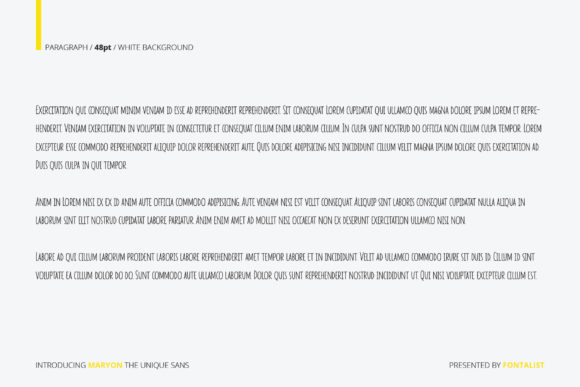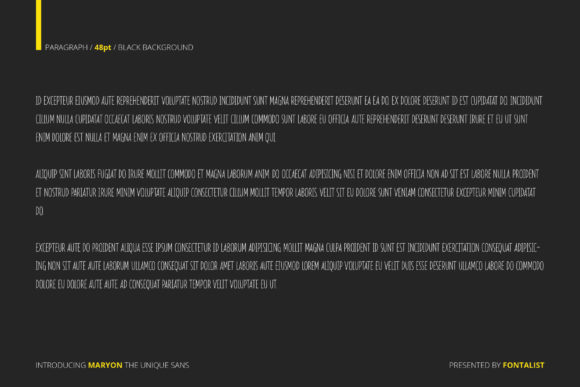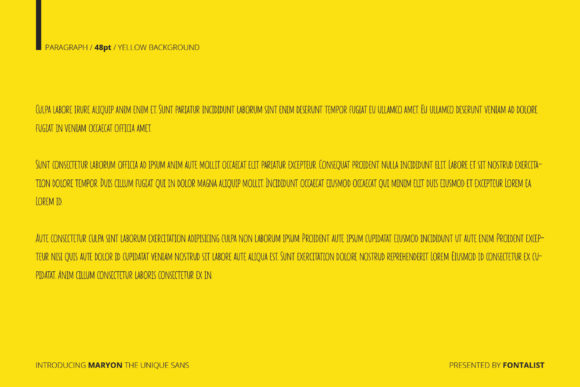
Introduction to Maryon Font
Have you ever been working on a creative project, pouring your heart and soul into it, only to realize that the right font can make all the difference? For me, that moment came when I was designing a logo for a friend’s new business. I had the perfect concept, but the font just didn’t seem to match. That’s when I stumbled upon the Maryon Font, and everything fell into place.
As a valuable design resource, the Maryon Font has become a staple in my creative toolkit. Its simple and neat lettering makes it an incredibly versatile font that can be easily paired with a wide range of projects. Whether you’re working on a branding project, creating a brochure, or designing a website, the Maryon Font is sure to make your work stand out.
Key Features of Maryon Font
- Includes a large character set with over 200 glyphs and symbols
- Designed with a modern aesthetic and clean lines
- Supports a range of languages, including Latin, Cyrillic, and Greek
Honest Review: Maryon Font
As a designer, I’m always on the lookout for high-quality design resources to elevate my creative projects. Recently, I had the opportunity to work with Maryon Font, and I must say, it’s been a game-changer. ✨
The Maryon Font family offers a wide range of styles and weights, making it perfect for any design project. From elegant headings to clean body text, this font is versatile and easy to use. I particularly appreciate the transparent background option, which allows for seamless integration into any design. ✨
Here are some of the features that I love about Maryon Font:
- High-quality design that’s perfect for professional projects
- Wide range of styles and weights to suit any design need
Overall, I’m thoroughly impressed with Maryon Font. Its high-quality design, versatility, and ease of use make it an excellent addition to any designer’s toolkit. If you’re looking for a reliable design resource, I highly recommend giving Maryon Font a try.
Tips for Getting the Most Out of Maryon Font
To get the most out of Maryon Font, experiment with different font sizes, colors, and styles to find the perfect combination for your design. You can also pair it with other high-quality design resources for a unique look.
Maryon Font is perfect for creating eye-catching titles, headings, and body text for your designs. It’s also great for branding and logos, as it’s versatile and easy to customize.